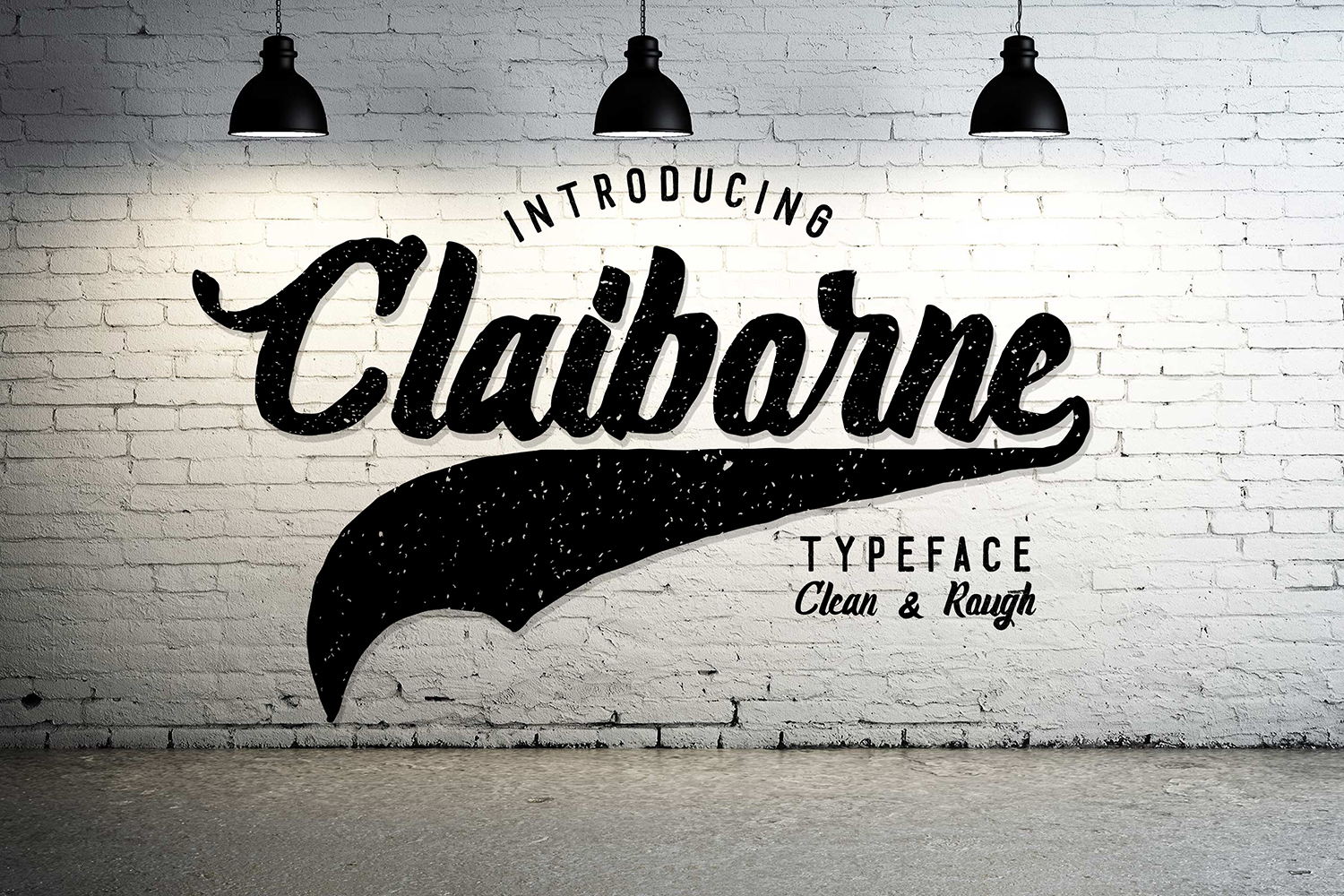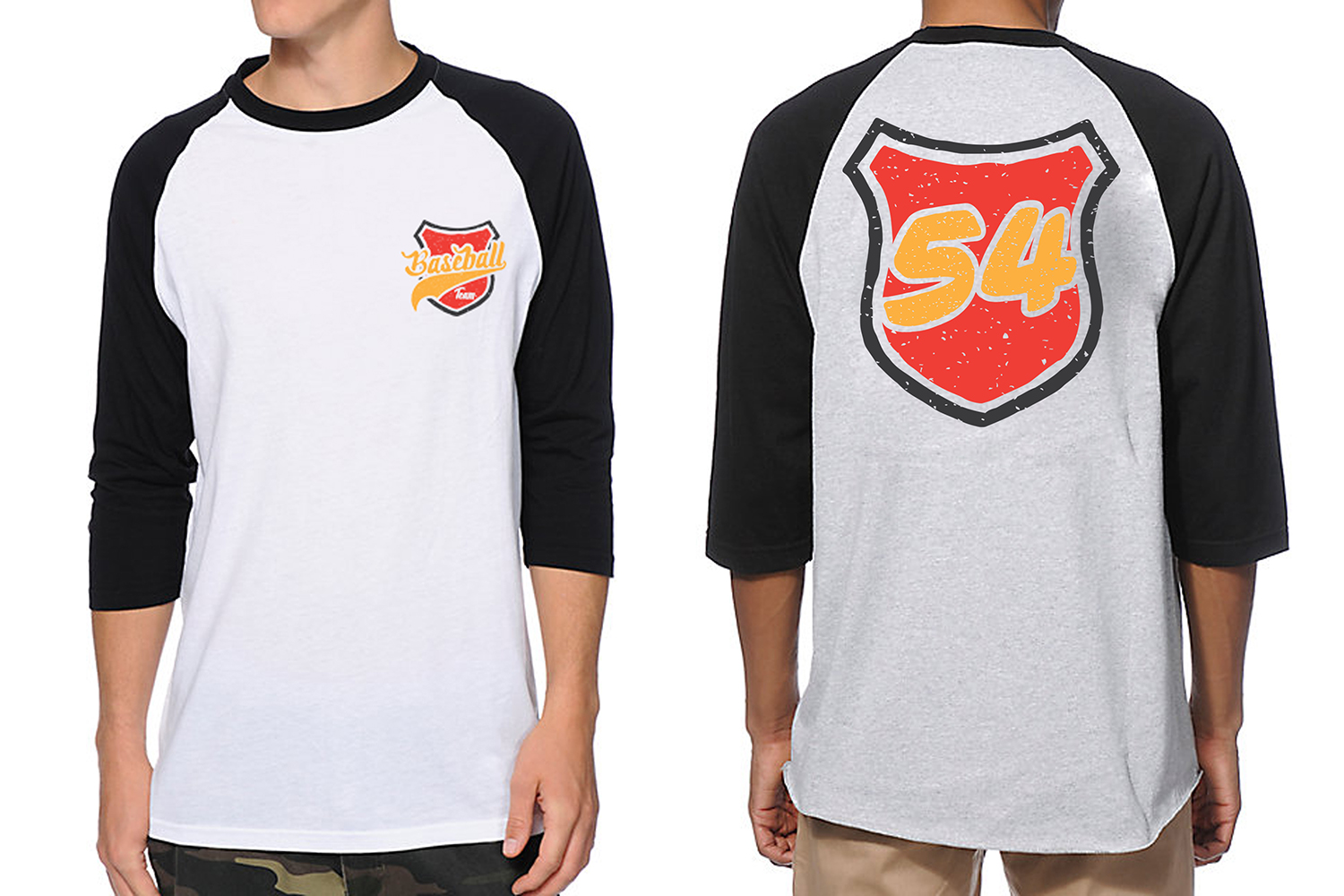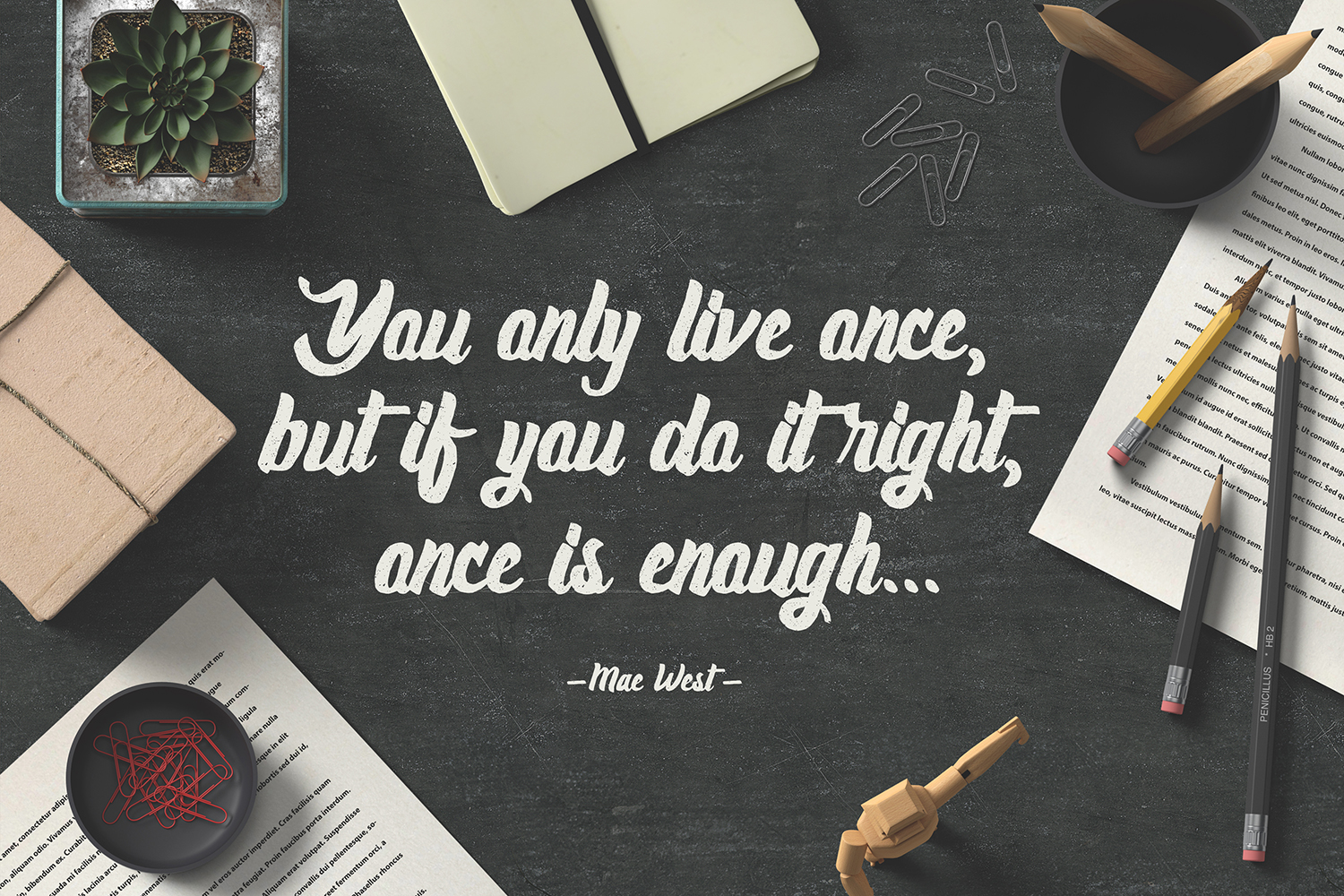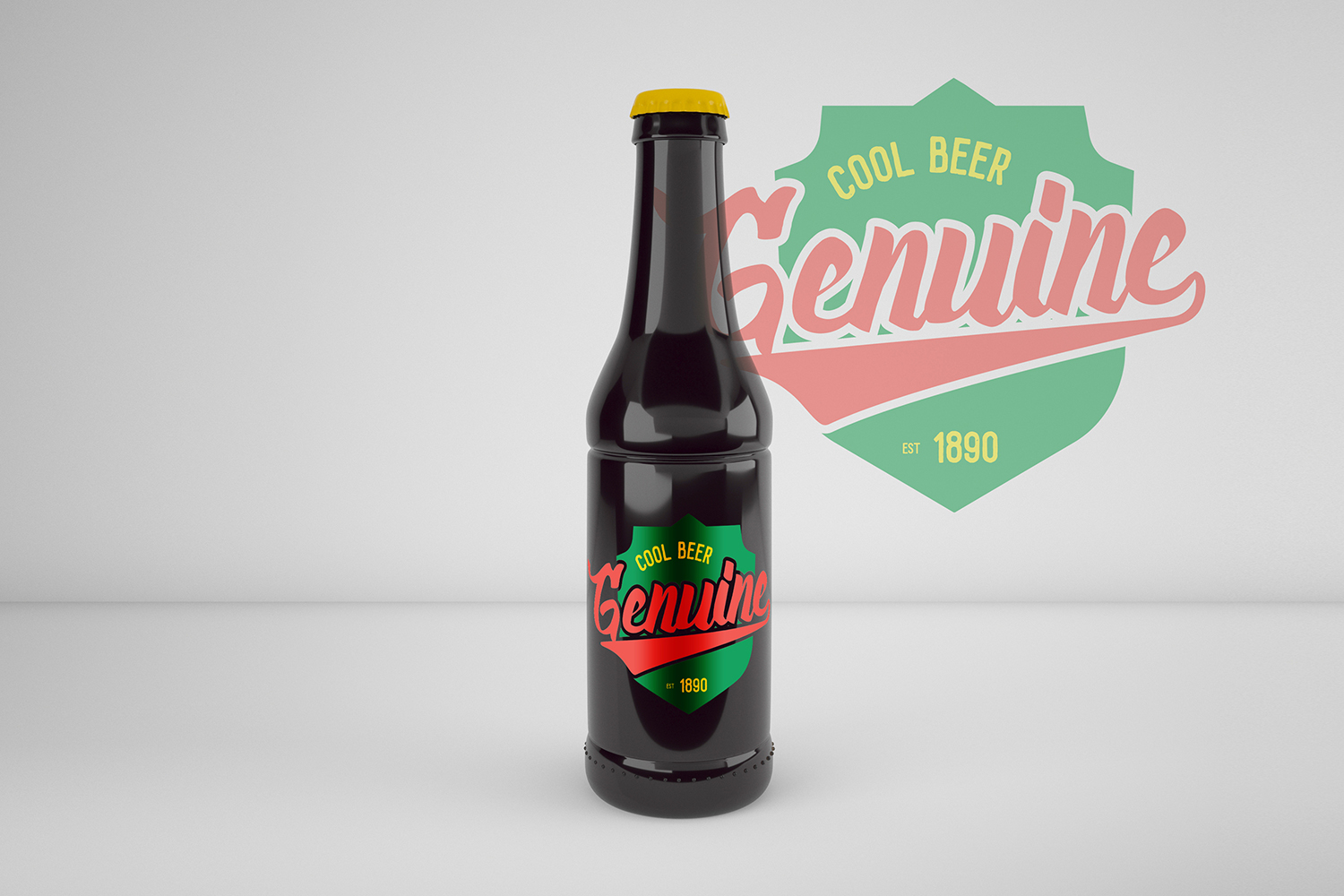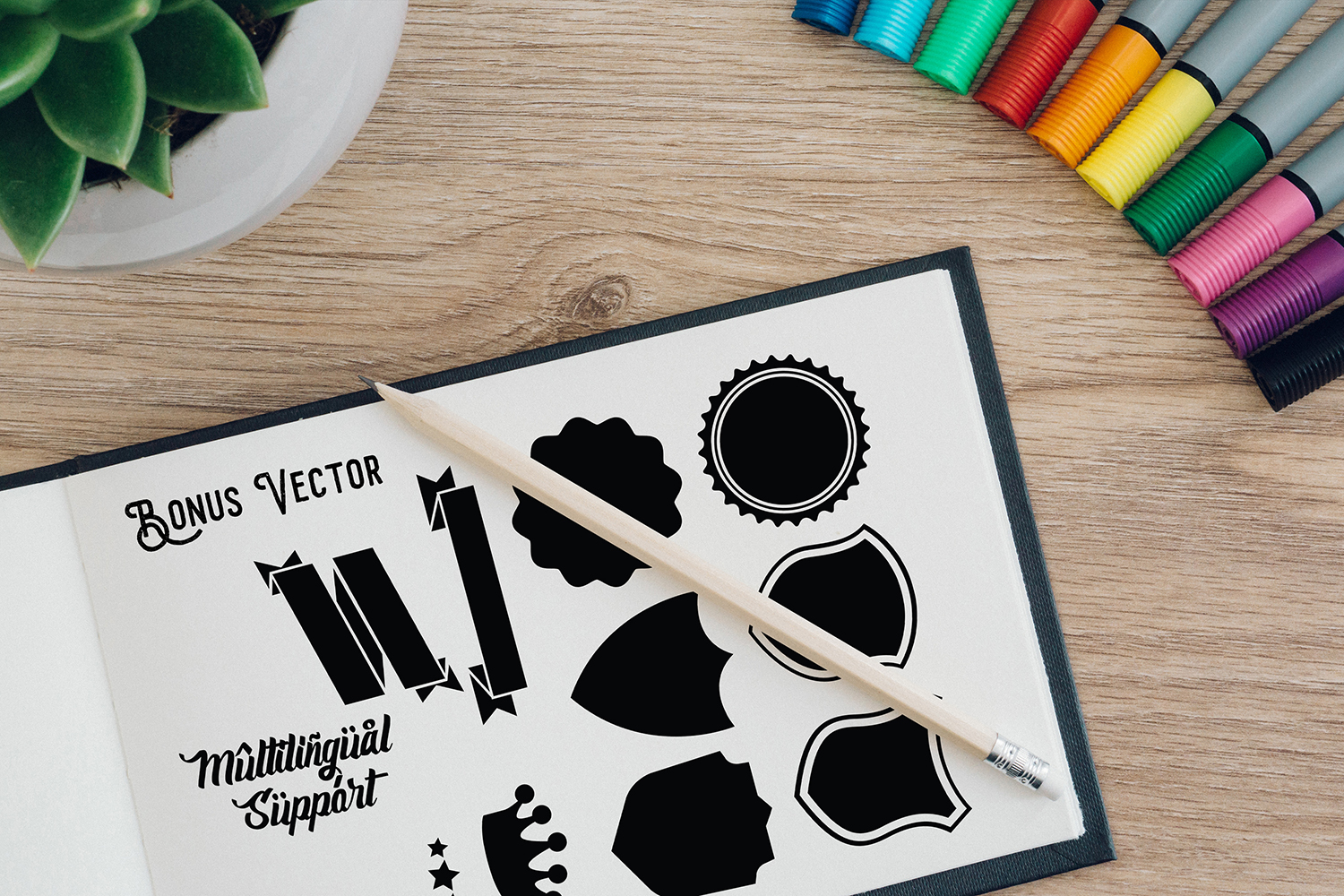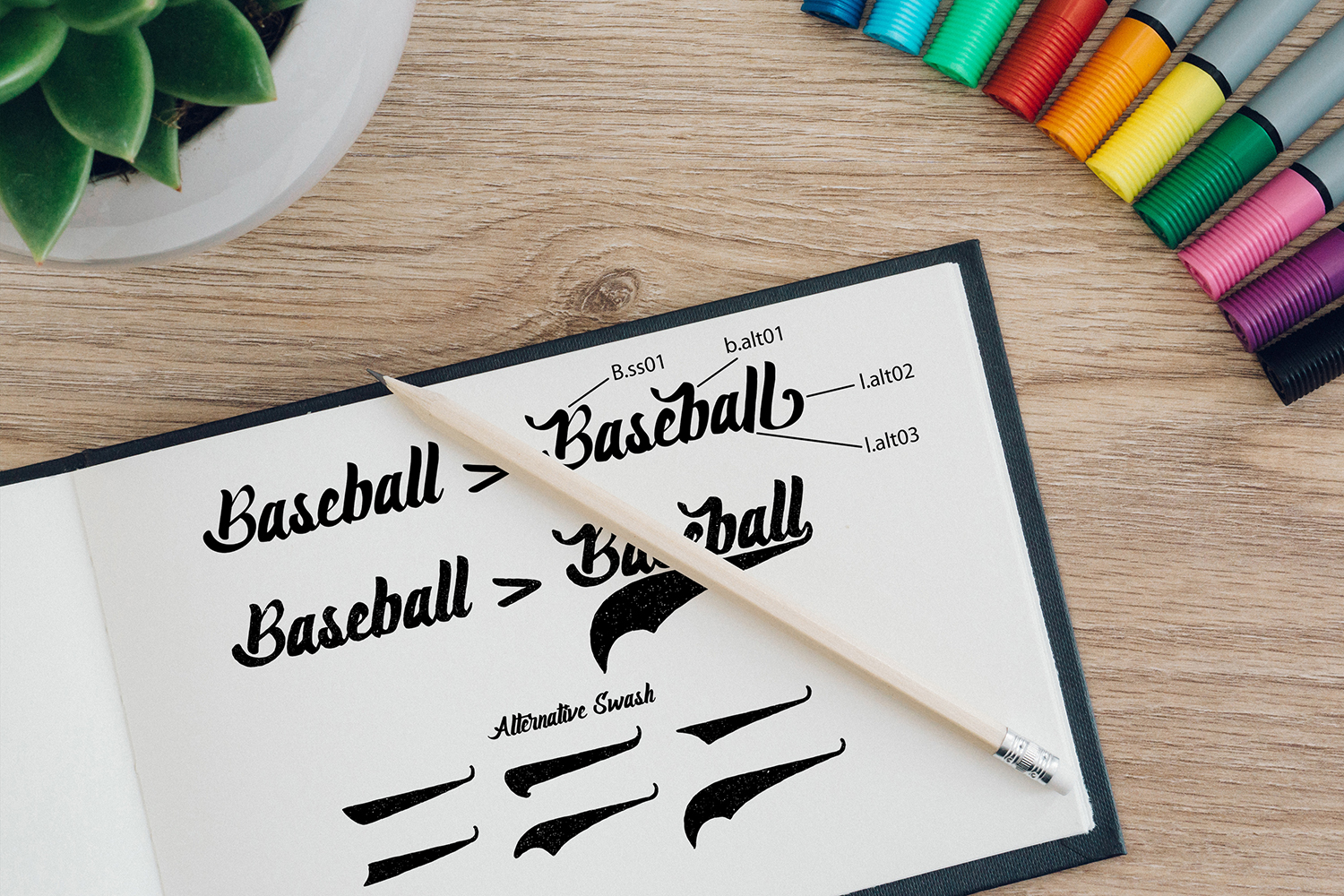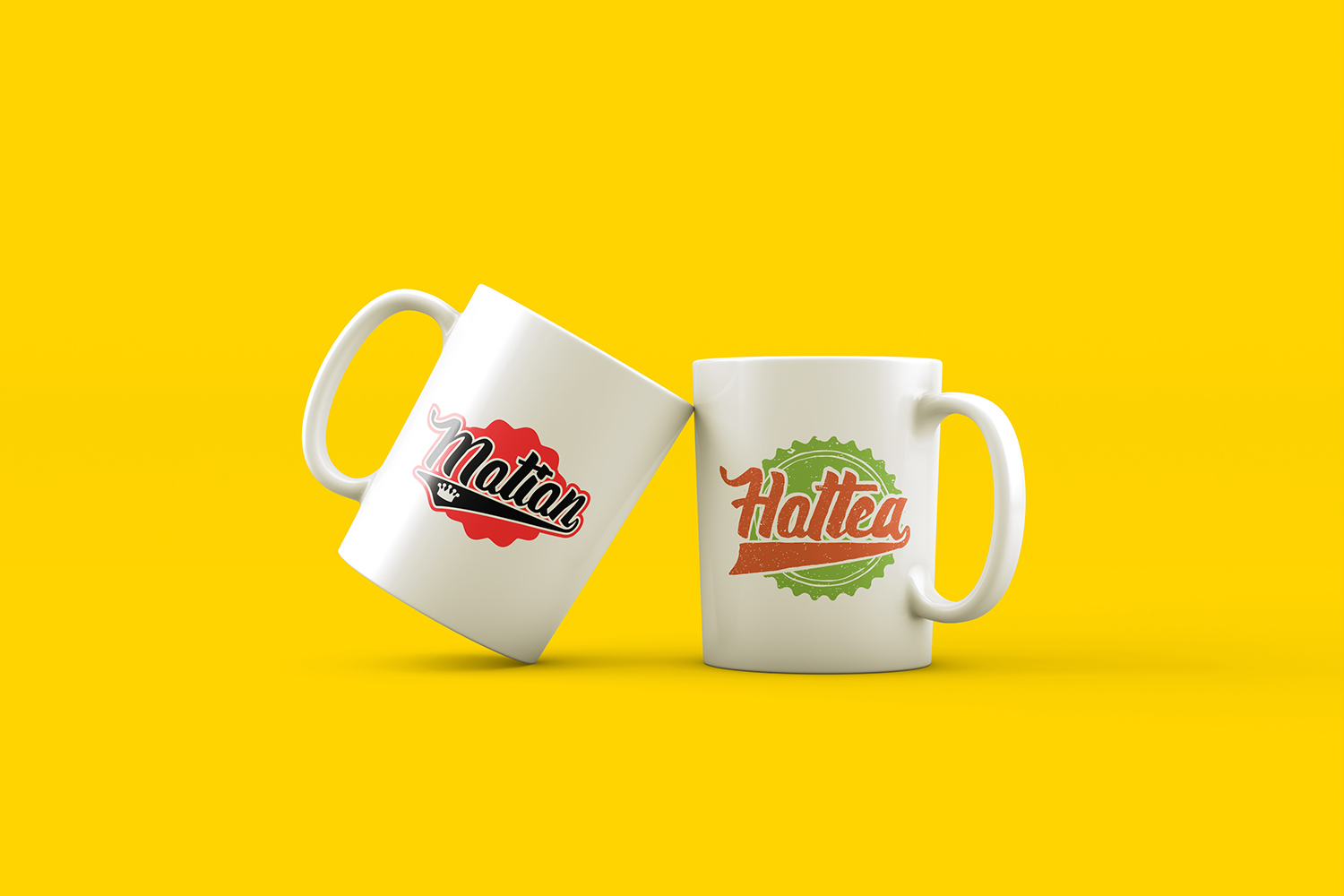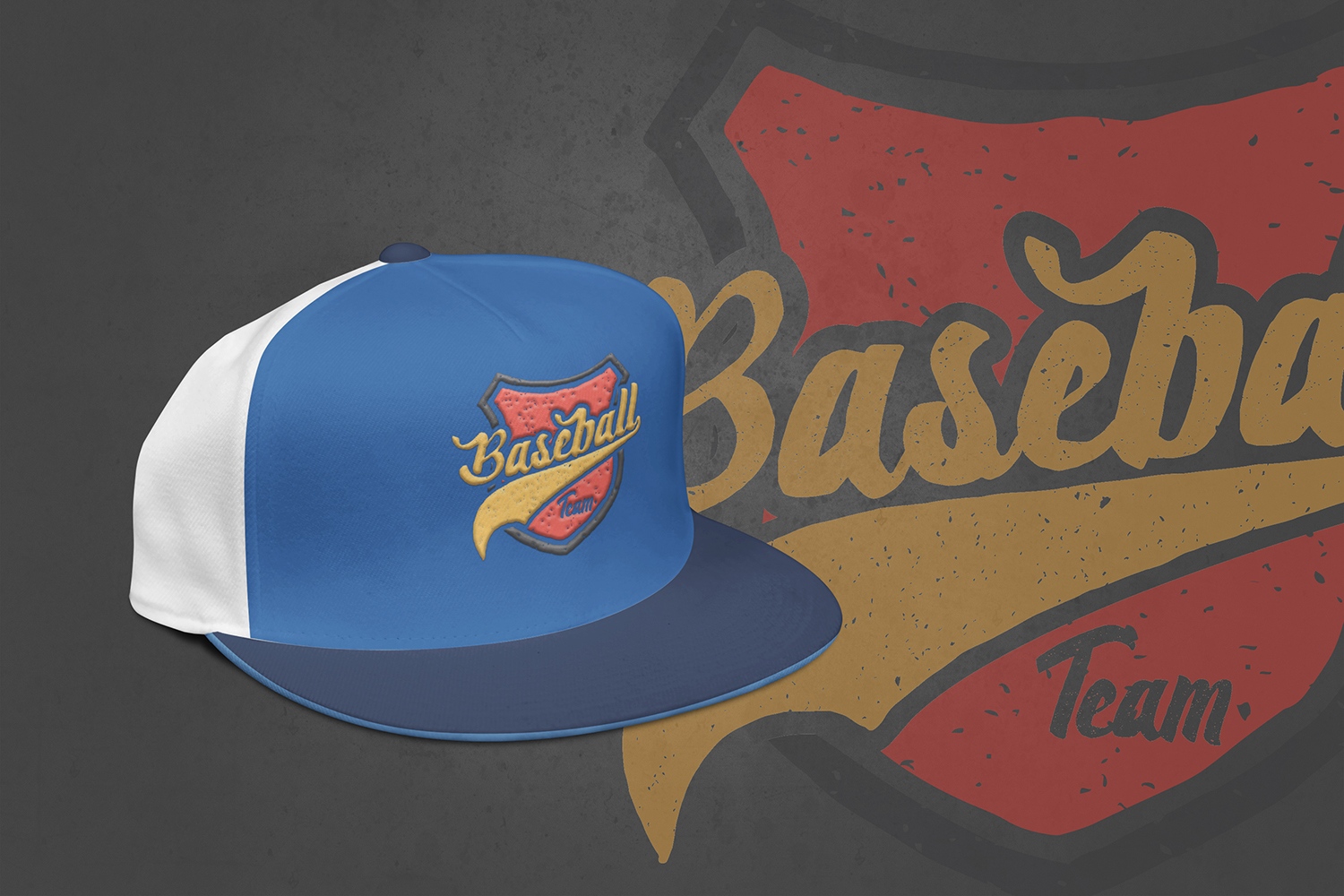
HomeScript FontsClaiborne Font Script Fonts Claiborne Font FacebookXPinterestWhatsApp Claiborne Font Poster 2 Claiborne Font Poster 3 Claiborne Font Poster 4 Claiborne Font Poster 5 Claiborne Font Poster 6 Claiborne Font Poster 7 Claiborne Font Poster 8 Claiborne Font Poster 9 About Claiborne Font Claiborne is a stunning, solid script that comes in 2 variations: Claiborne & Claiborne Rough. DOWNLOAD ON CREATIVE FABRICAThis font is sold and delivered by Creative Fabrica. Font Canyon may earn a commission if you buy through this link. People also explored Remond Font Toast Font Healthy Font Acoustic House Font Inno Font Hello Baby Boy Font Ayam Bakar Valentine’s Day Frame Mockups Thursday Rise Font 290 0 TagsClaiborne Font Previous articleMiletta FontNext articleAnnabeth Font LEAVE A REPLY Cancel reply Comment: Please enter your comment! Name:* Please enter your name here Email:* You have entered an incorrect email address! Please enter your email address here Website: Save my name, email, and website in this browser for the next time I comment. Personal Use Free Angista Script Personal Use Free Read more about this font Triangular Curves Personal Use Free Read more about this font BD Beans Personal Use Free Read more about this font Bright Dreams Personal Use Free Read more about this font BLOG Free Fonts Risk: Why Free Fonts Can Be Dangerous for Designers Free Fonts Risk: Why Free Fonts Can Be Dangerous for Designers Using free fonts is a common practice in web and graphic design. However, the... How to Install and Use Fonts on Windows, macOS, and Web Projects Best Fonts for T-Shirt Design – Top 2025 Picks Top 10 Handwritten Fonts That Elevate Your Designs